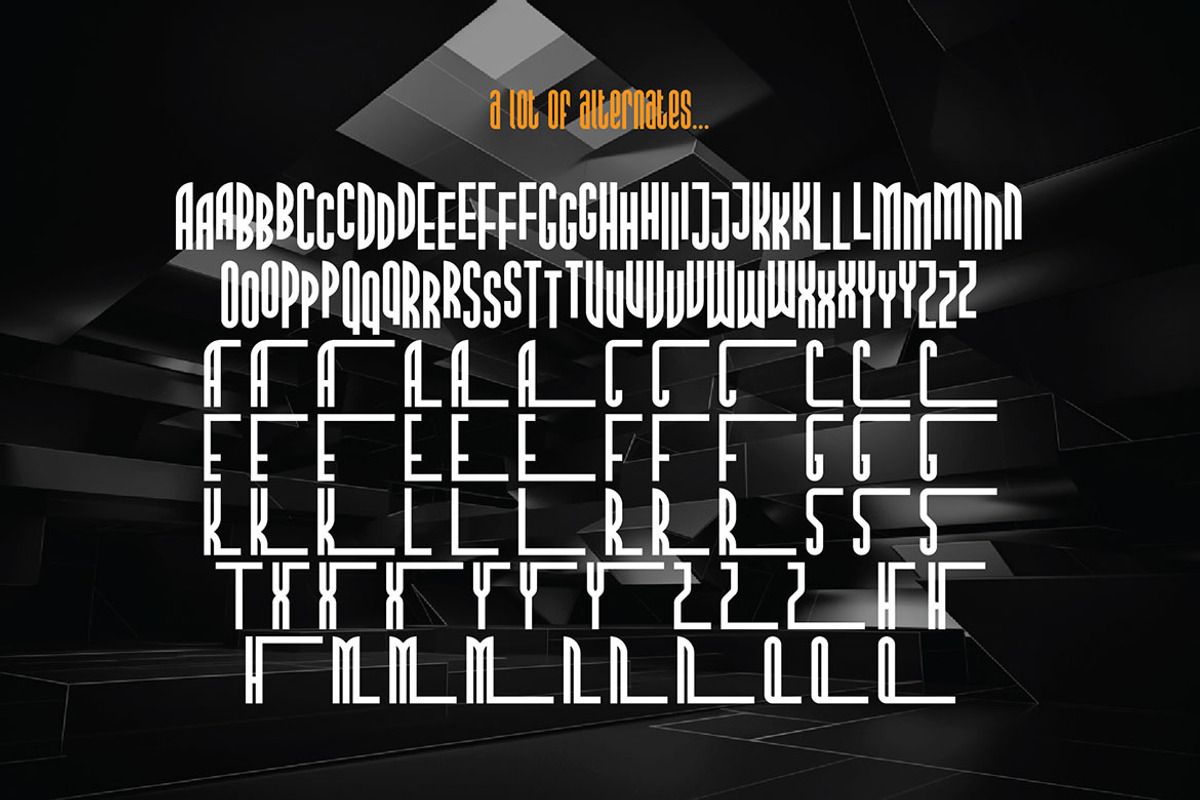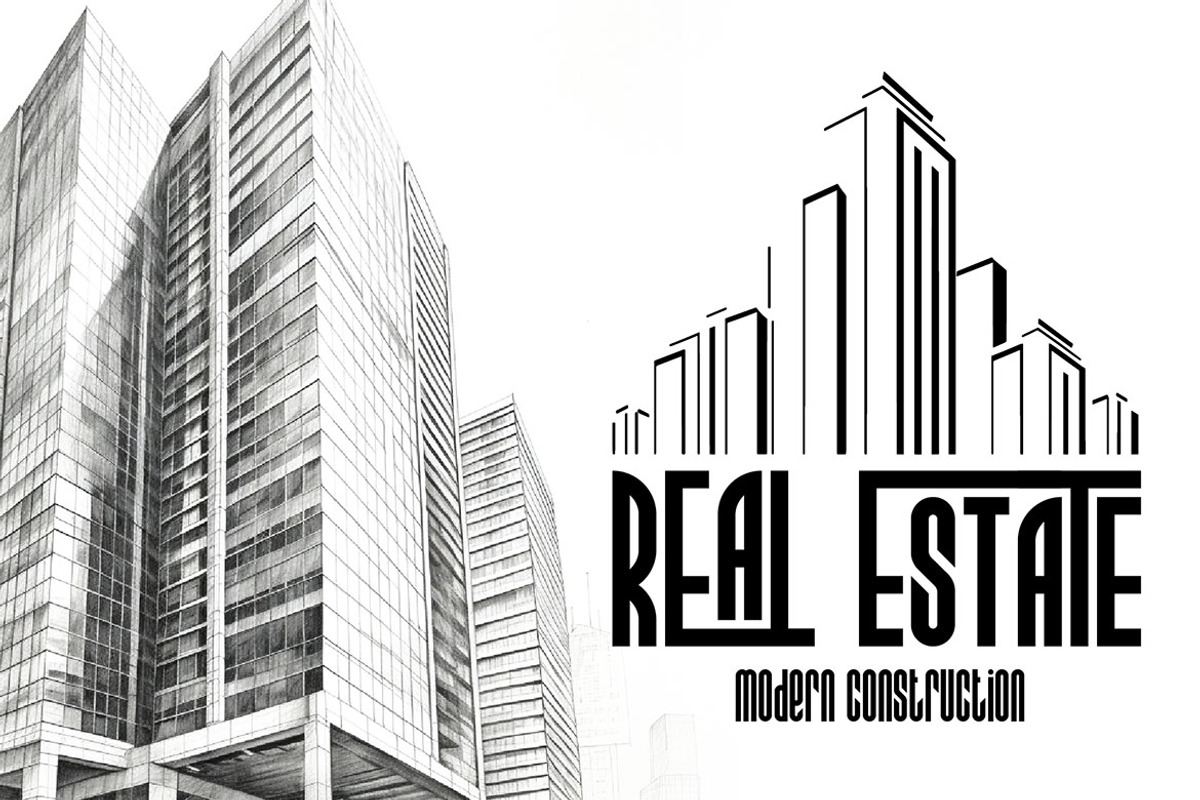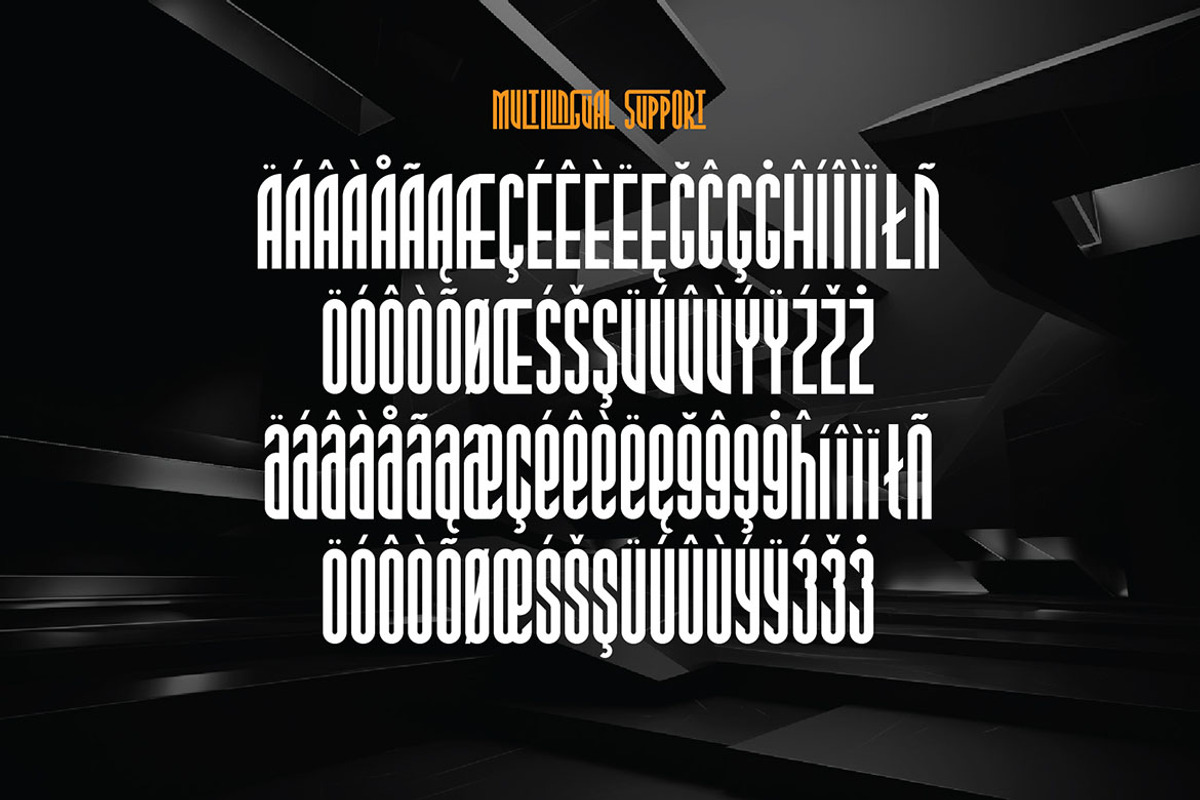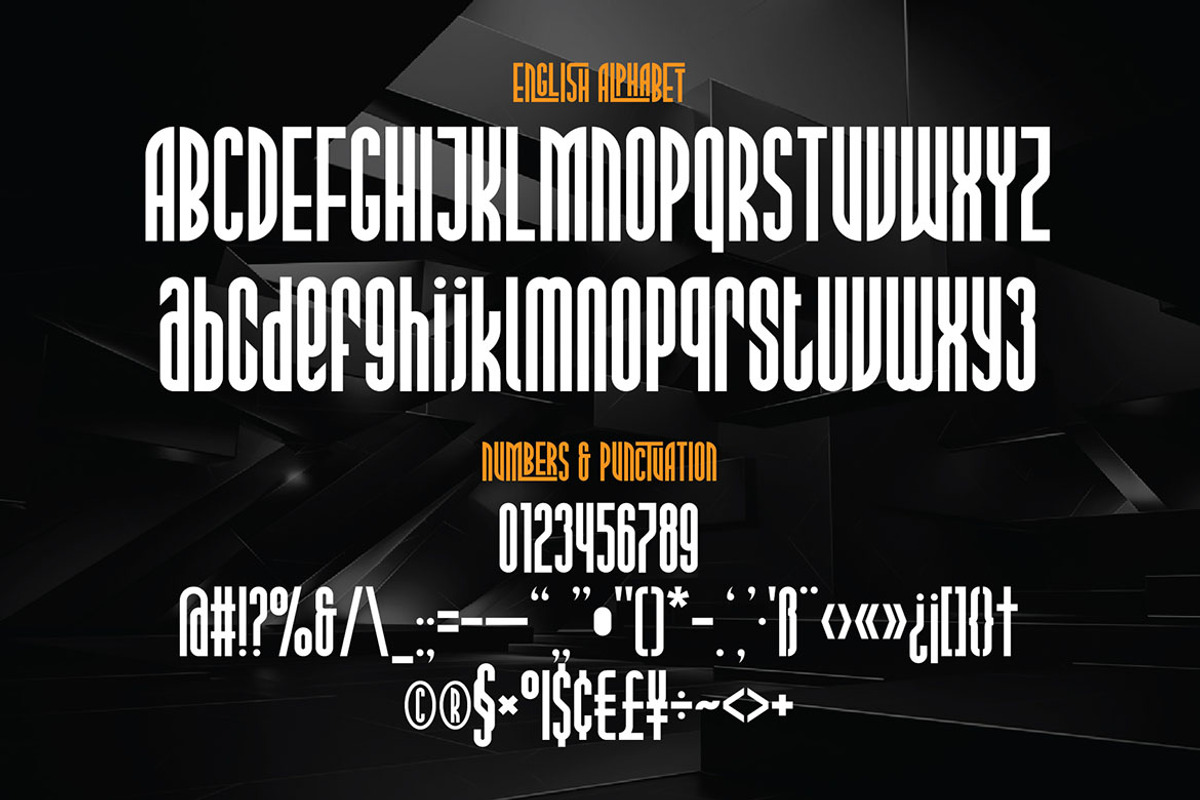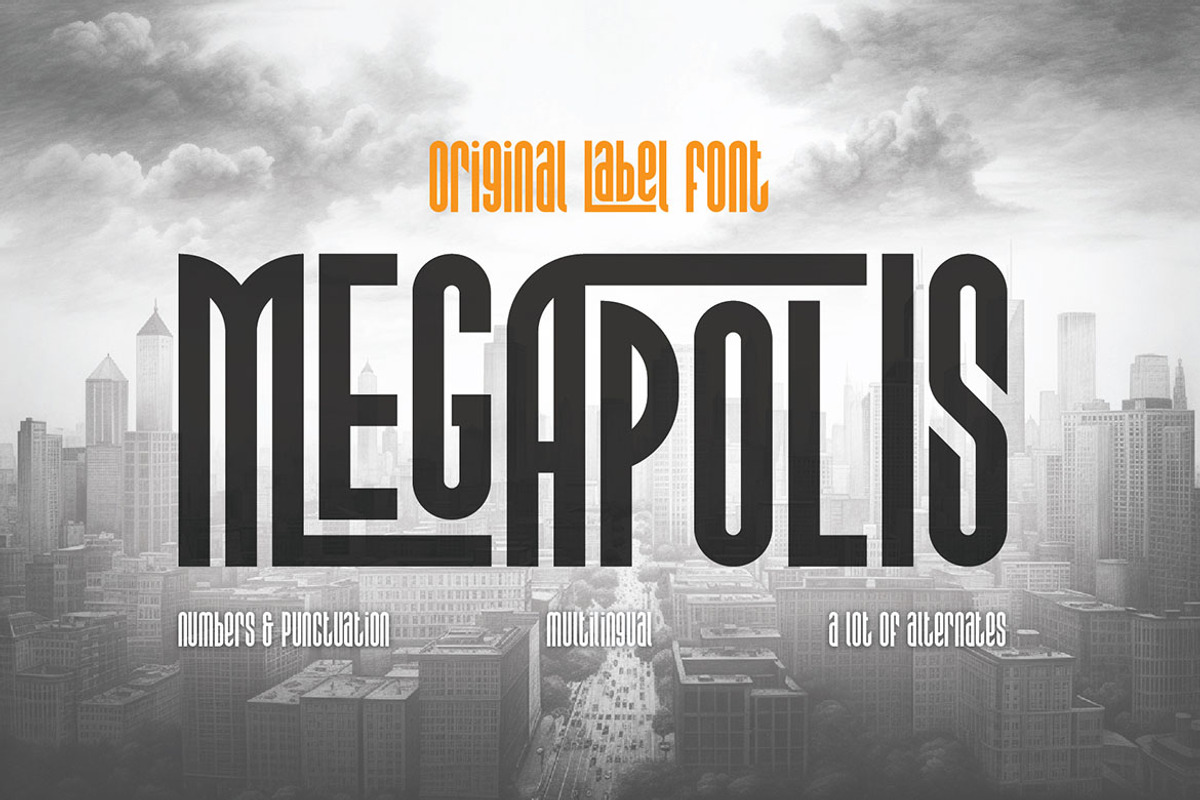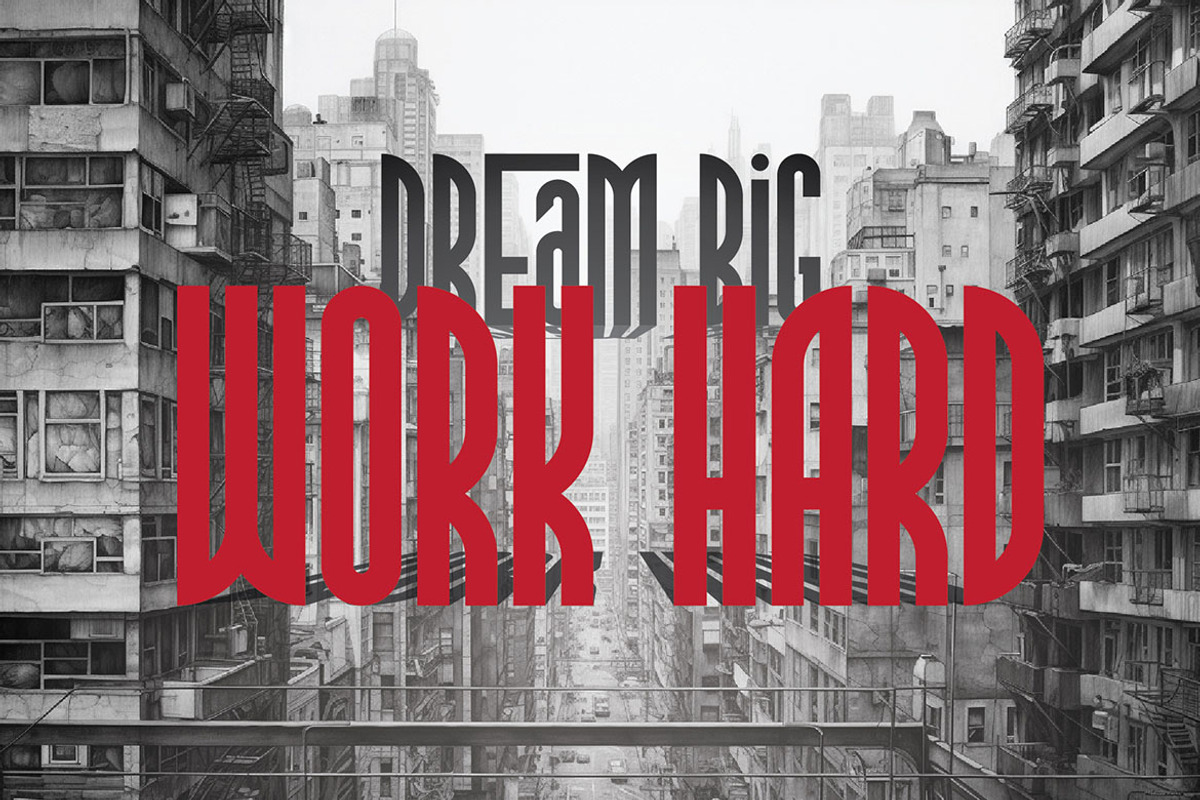
Megapolis Display Font
Unique, retro, artdeco, modern, sharp & condensed sans serif font. Comes with multilingual support & a lot of alternates - great for your new logo or branding project.
- Multilingual support and lot of alternates
- Great for retro or vintage style branding projects